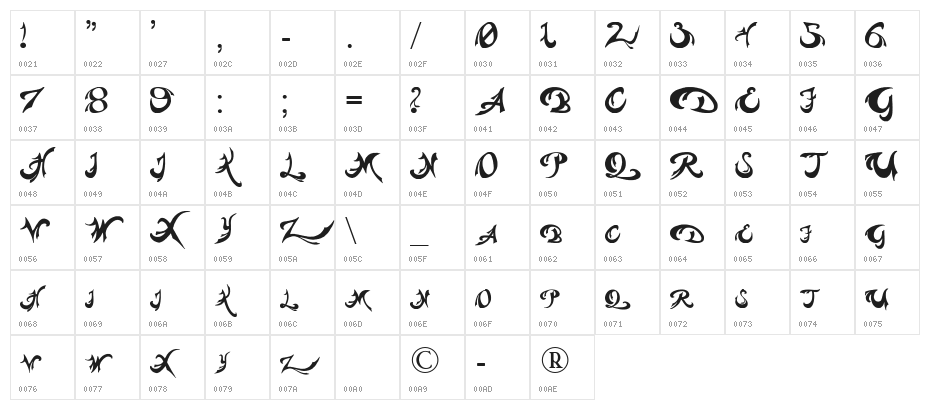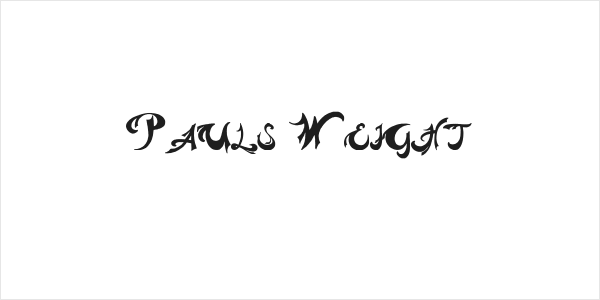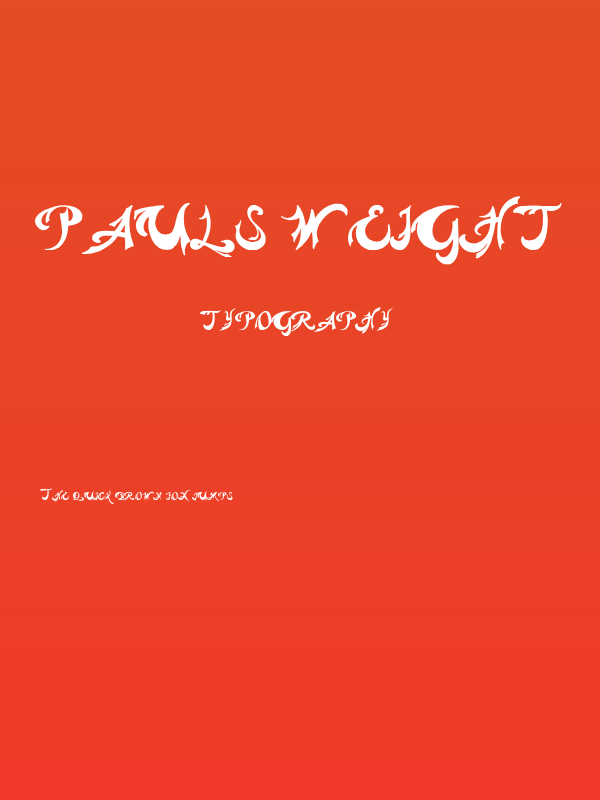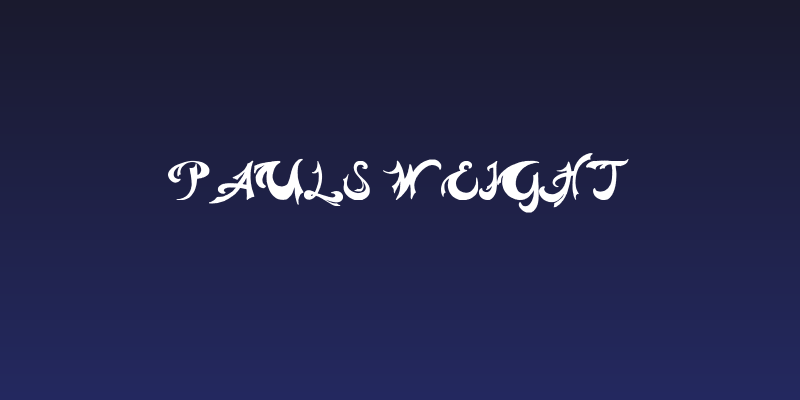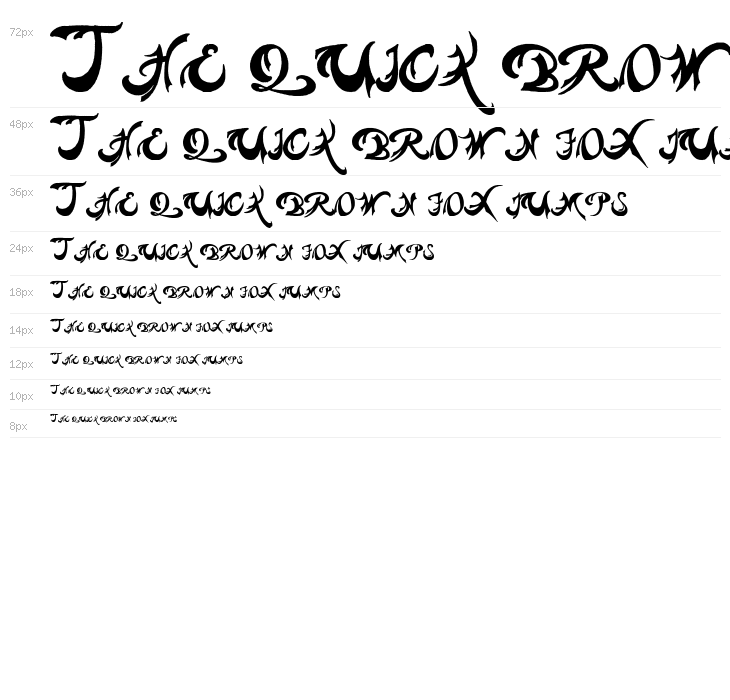
Pauls Weight Font
Pauls Weight Description
This font features a highly decorative and artistic style, characterized by its bold and intricate letterforms. The characters exhibit a unique blend of sharp edges and flowing curves, creating a dynamic and visually striking appearance. The uppercase and lowercase letters maintain a consistent design, with elaborate swirls and embellishments that give the font a distinct personality. The numbers and special characters are equally ornate, ensuring a cohesive look across all elements. This font is perfect for projects that require a dramatic and eye-catching typeface.
Proposed ProjectsIdeal for tattoo designs, album covers, posters, and any project needing a bold, artistic flair.